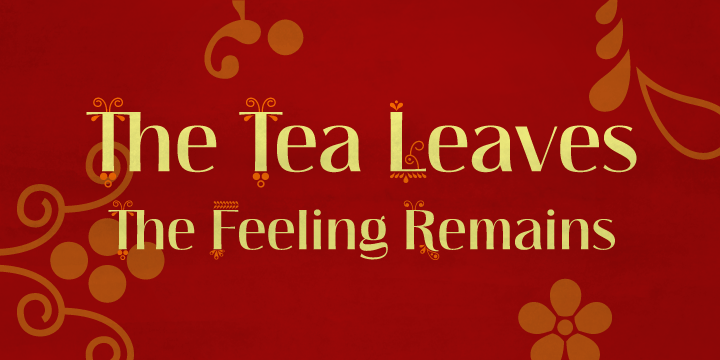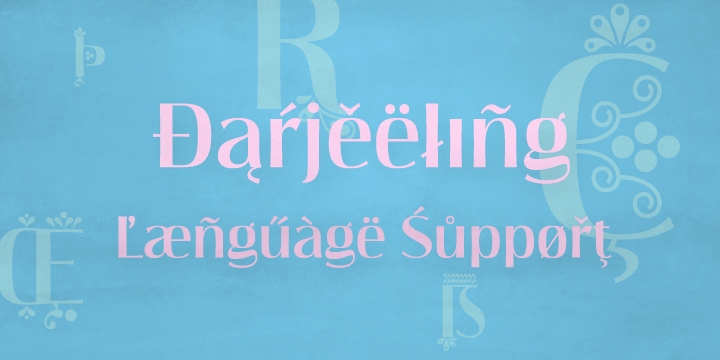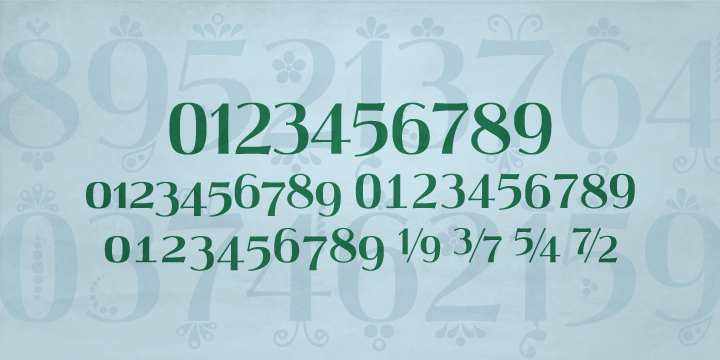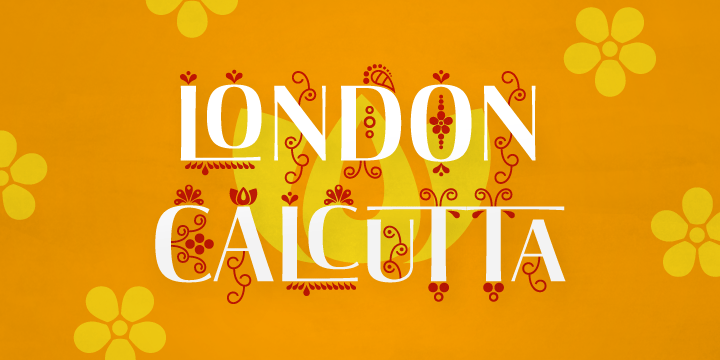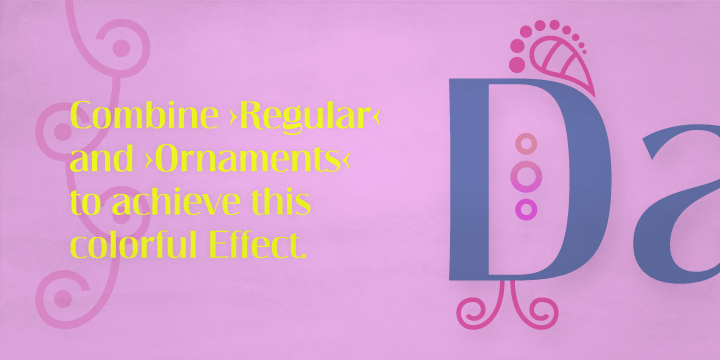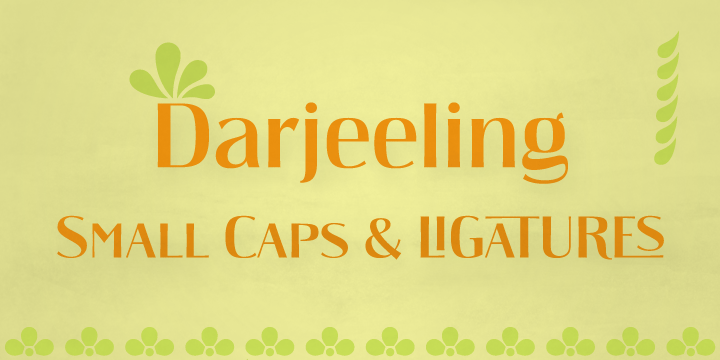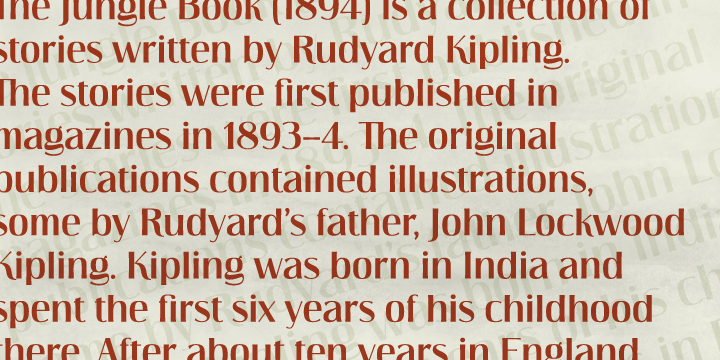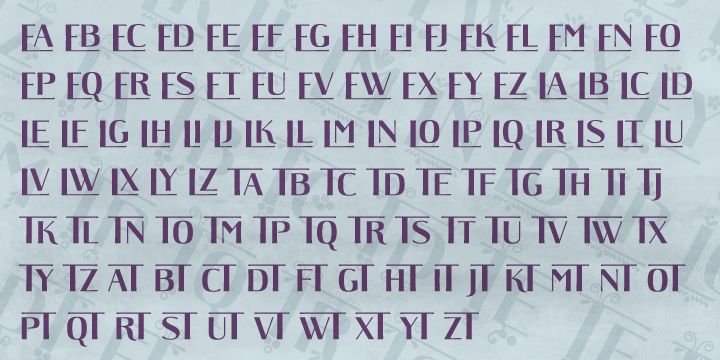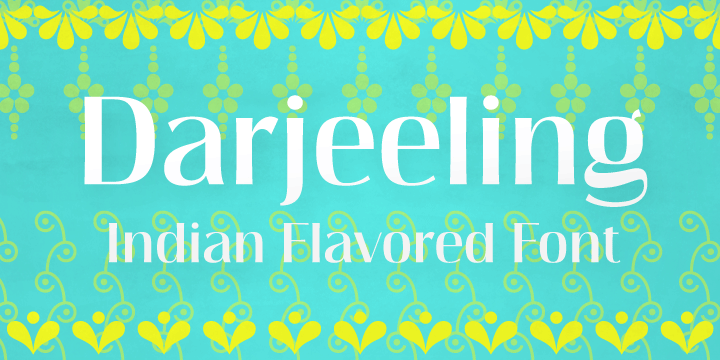
Darjeeling combines British Elegance and Indian Flavor. It is flared like Optima, with a scent of Bodoni. By layering “Regular” and “Ornaments” over each other you will create astounding pieces of colorful typography. Additionally there is “Regnaments” which combines the two other styles.
Darjeeling is great as a display font, but also perfectly legible at text sizes. Use the ornaments only to add spice to Your design.
Make sure to use applications supporting all these lavish OpenType features like small caps, various sets of figures, fractions and the 102 discretionary ligatures.